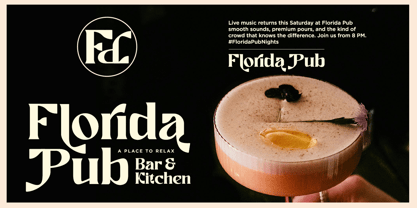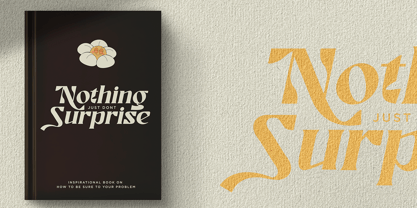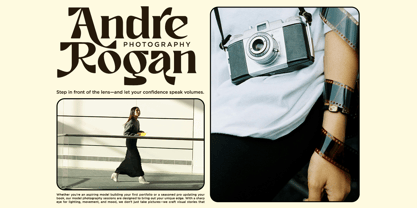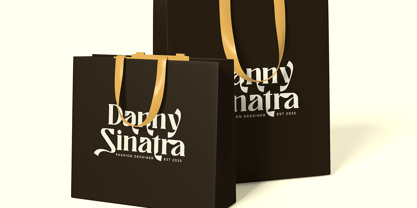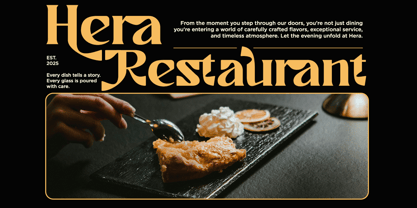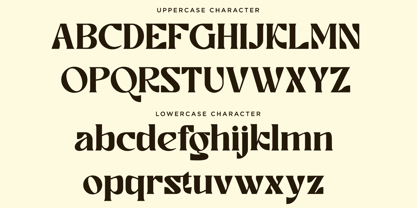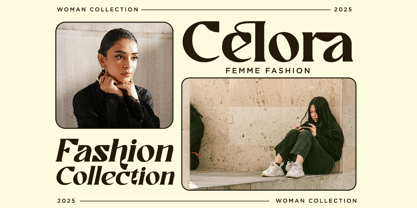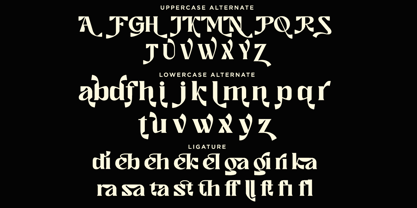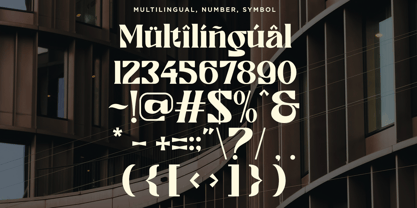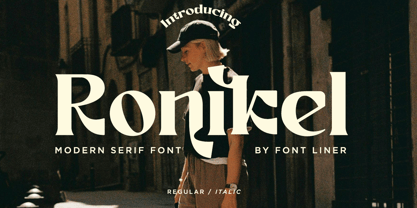
Ronikel
by Font Liner
The Ronikel Font Family was designed by Ghina Luthfiarieska and published by Font Liner. Ronikel contains 2 styles and family package options.
Ronikel is modern serif font is a typeface that embodies timeless elegance and sophistication. With its smooth serifs, balanced proportions, and graceful strokes, this typeface brings a sense of modern and unique charm to any design. Perfect for high-end branding, wedding invitations, editorial layouts, fashion logos, and projects that desire a vintage-modern aesthetic. This typeface blends traditional beauty with modern precision, making it versatile and visually appealing.